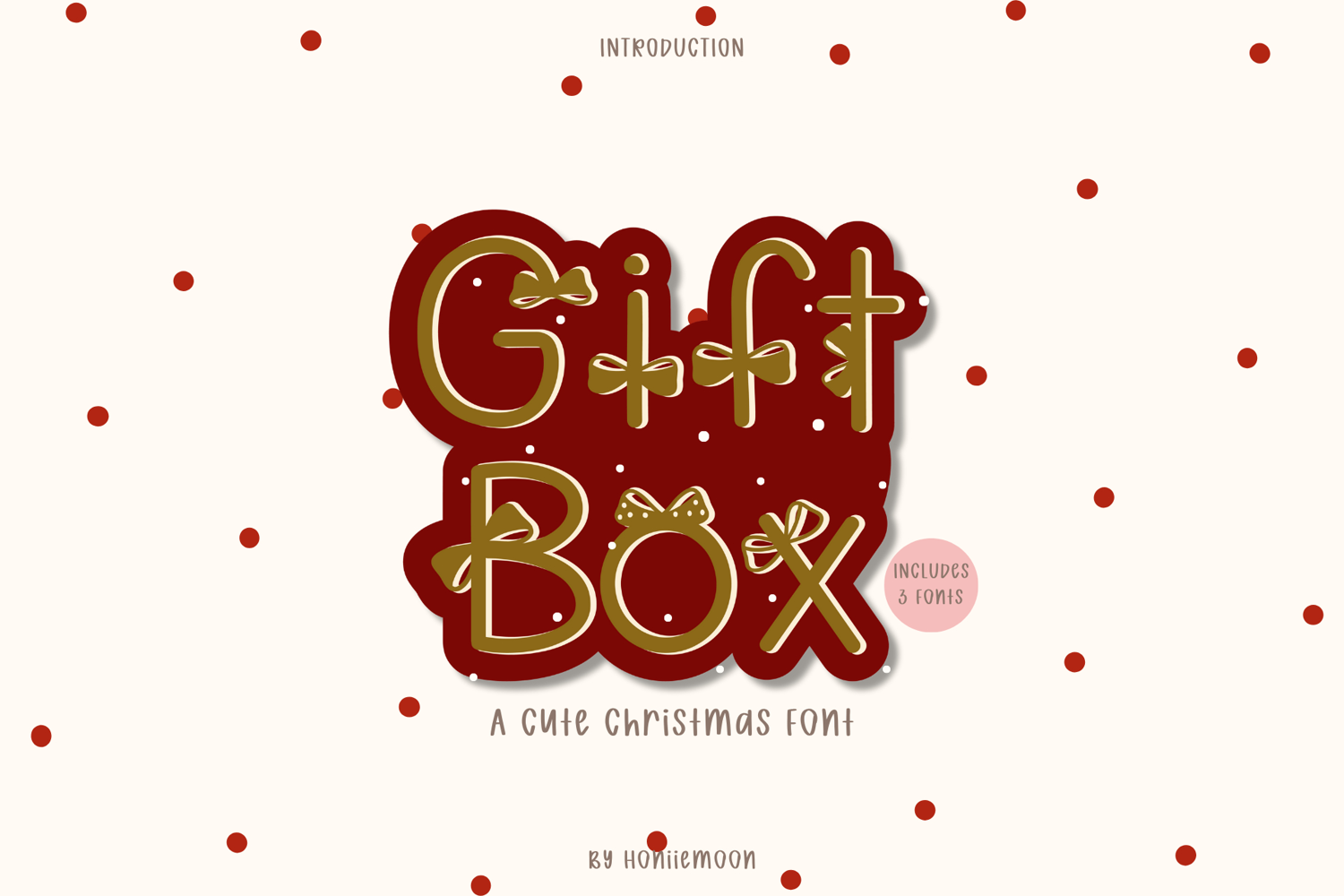
Christmas Cute Snow Color Font
Gift Box Creative Alphabet Fonts for Festive Designs, Trendy Handwritten, Display & Decorative Styles. Enhance your festive designs with our creative alphabet fonts! Choose from trendy handwritten, display, and decorative styles for invitations, logos, posters, and more.